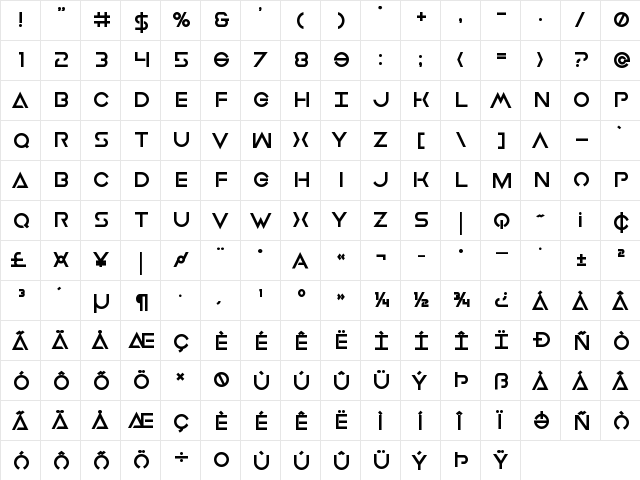
Earth Orbiter Extra-Bold Bold
Design Context for Earth Orbiter Extra-Bold Typeface
Earth Orbiter Extra-Bold takes a measured approach to typography — its balanced proportions and neutral character make it a reliable workhorse for both digital and print work. The heavy weight commands attention and anchors typographic hierarchies.